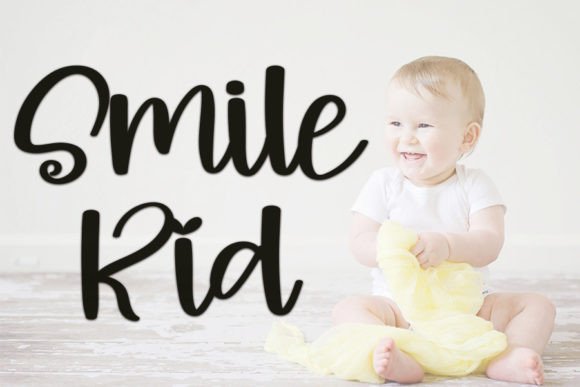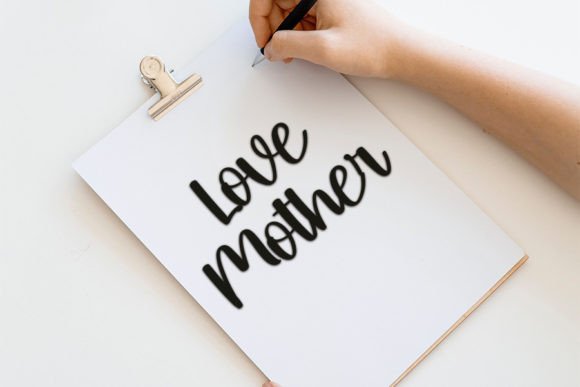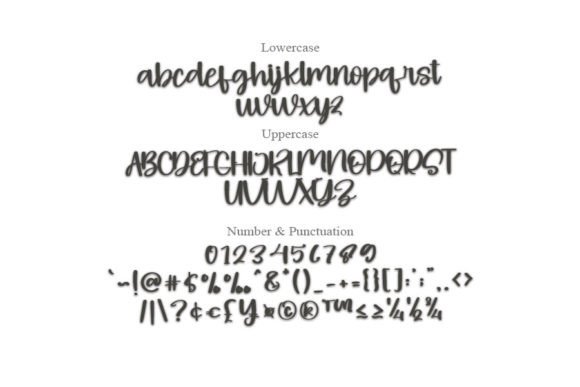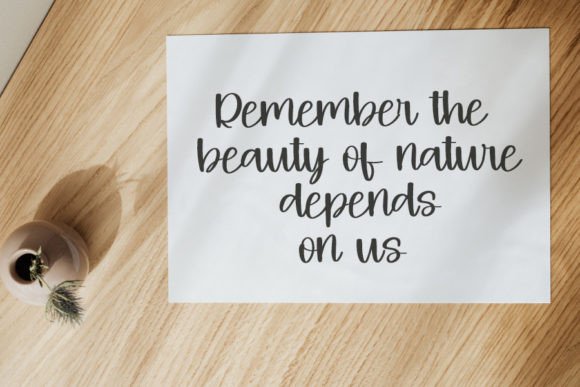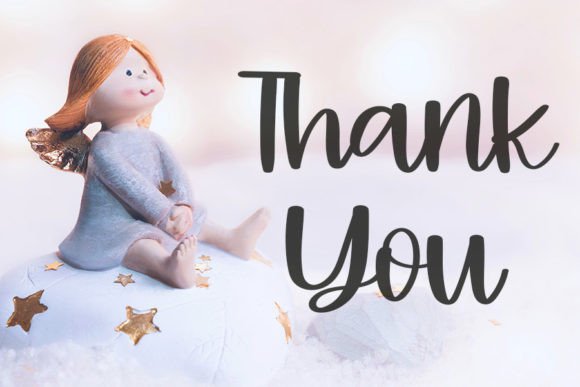
Discover the Timeless Charm of Barbie Font
There’s something magical about finding the perfect font for a project, isn’t there? The moment when all the pieces come together, and your design starts to take shape. For designers, this moment is what makes all the hard work worth it. And, if you’re anything like us, you’re always on the lookout for that special font that will elevate your creations to the next level. That’s where the beautiful Barbie Font comes in – a stunning handwritten font that’s sure to capture your heart.
With its elegant touch and timeless style, the Barbie Font is perfect for adding a touch of sophistication to your designs. Whether you’re working on a personal project or a professional one, this font is sure to make your creations stand out. Its distinct style is both versatile and eye-catching, making it a valuable addition to any designer’s toolkit.
Key Features of Barbie Font
- Font Family: The Barbie font is a custom-designed font, not a standard font family.
- Unique Characteristics: The Barbie font features a playful, cursive script with a mix of uppercase and lowercase letters, making it suitable for titles, headings, and decorative text.
- Font Style: The font has a single style, but it can be customized with various font sizes, colors, and effects to achieve different looks and moods.
Designer Review: Barbie Font
Overall, I’d say the Barbie Font is a fun, playful addition to any design project. The font is reminiscent of classic Barbie dolls, which could be a great fit for retro-themed designs or projects targeting young audiences.
- The font’s cursive style is well-executed, with smooth connections between letters and a consistent thickness.
- The font is highly customizable, with options for adjusting size, color, and style to suit your design needs.
- The font is available in a range of weights, from light to bold, making it suitable for a variety of design applications.
- The font may not be suitable for formal or professional designs, as it can come across as too playful or childish.
- The font’s cursive style can make it difficult to read in certain contexts, such as at small sizes or in low-contrast environments.
- The font may not be as versatile as some other fonts, as its retro aesthetic may limit its use in modern or edgy designs.
Overall, the Barbie Font is a fun and playful addition to any design project, but may not be the best choice for every situation. With its customizable options and smooth cursive style, it’s a great fit for retro-themed designs or projects targeting young audiences.
The Barbie Font is ideal for designs that require a playful, feminine touch. Some common use cases include:
– Children’s party invitations
– Fashion or beauty product packaging
– DIY craft projects
Getting the Most Out of the Barbie Font
To get the most out of the Barbie Font, experiment with different font sizes, colors, and styles to create a unique look. You can also pair the font with other playful or feminine elements, such as pastel colors or floral patterns, to create a cohesive design.